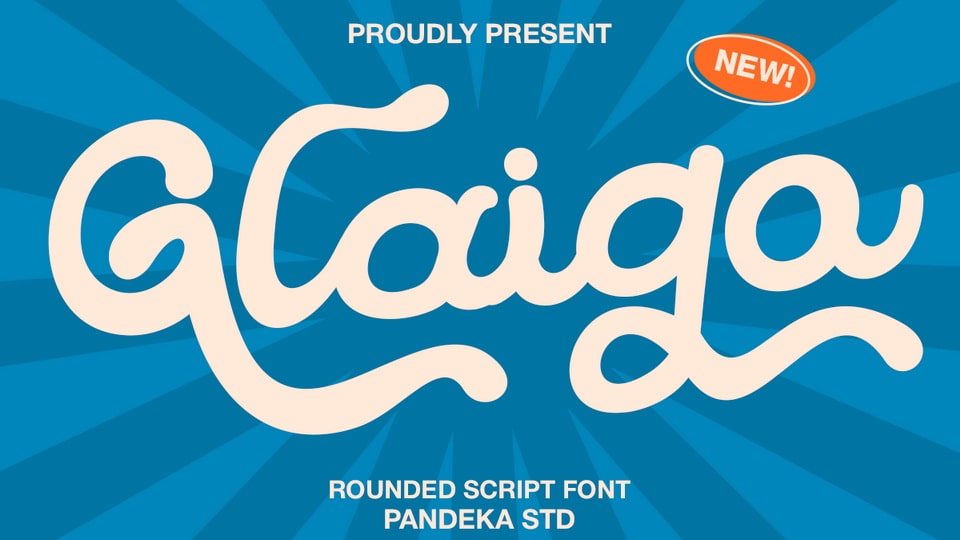
Download Glaigo font, a bold and playful script typeface with smooth, curvy strokes and a casual retro charm. Perfect for fun rounded script, playful typography.